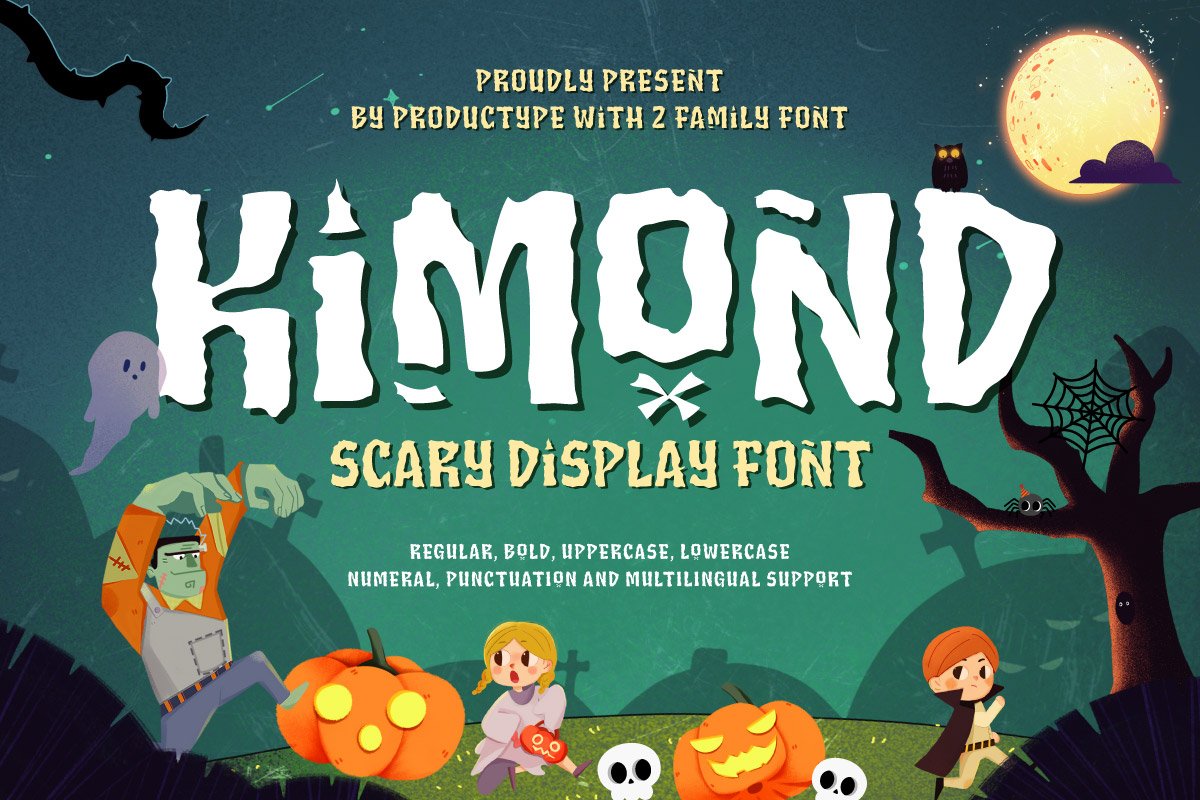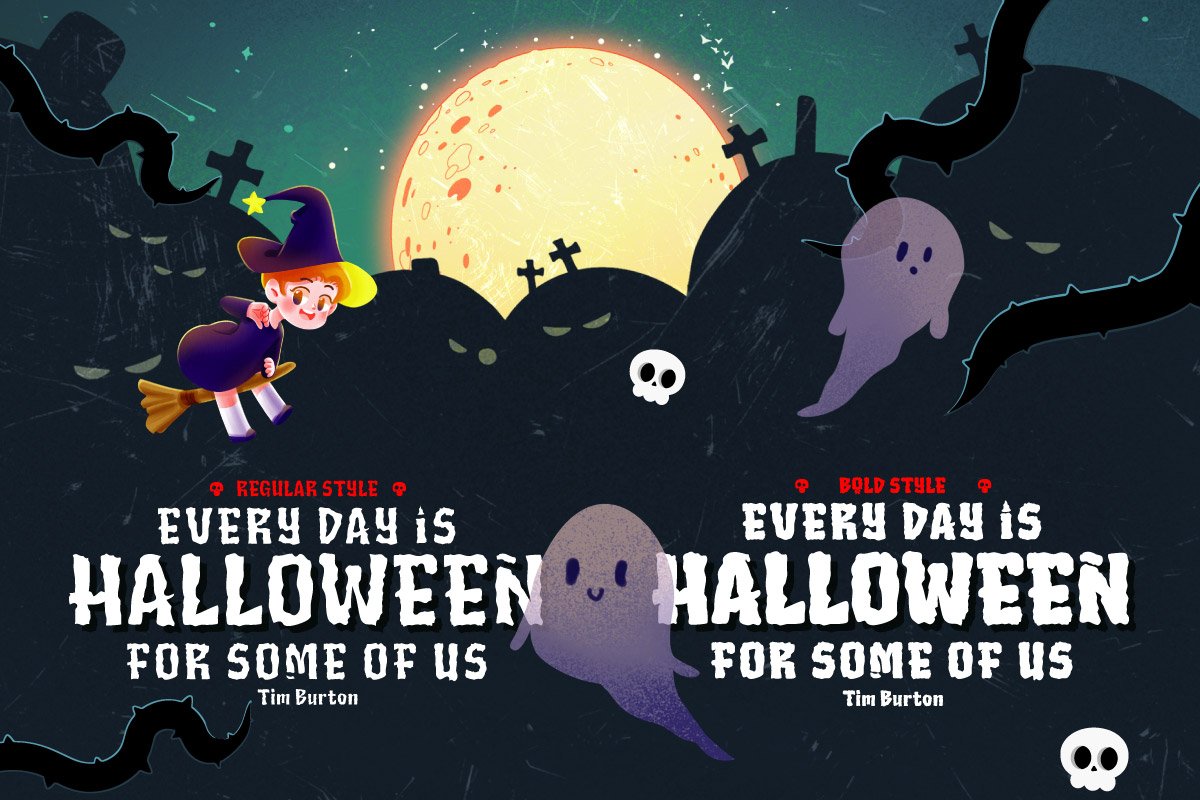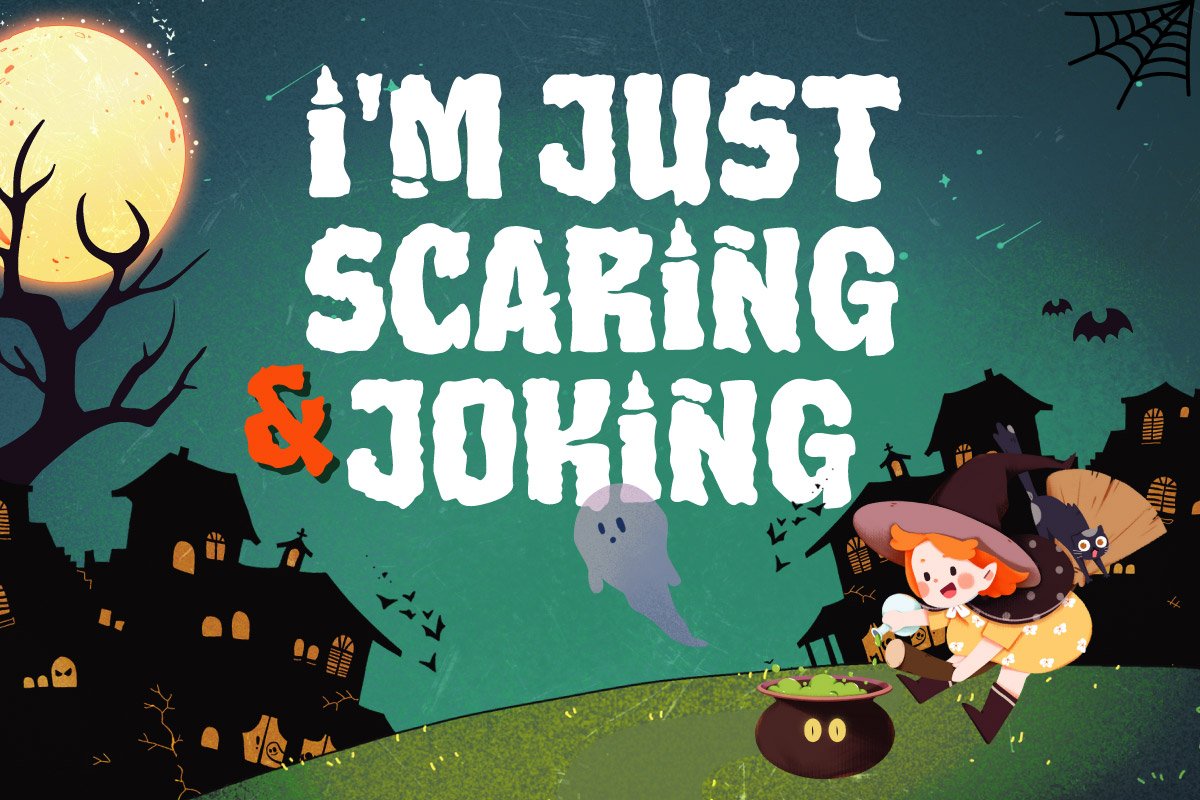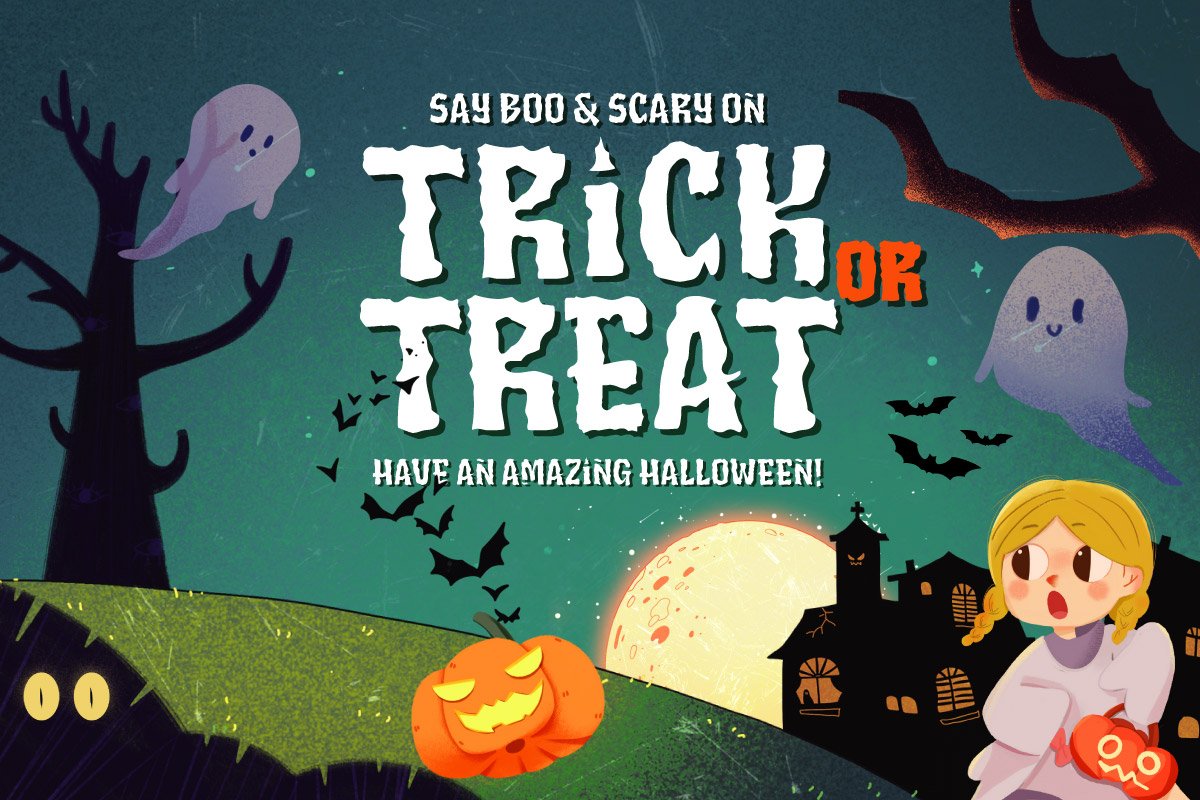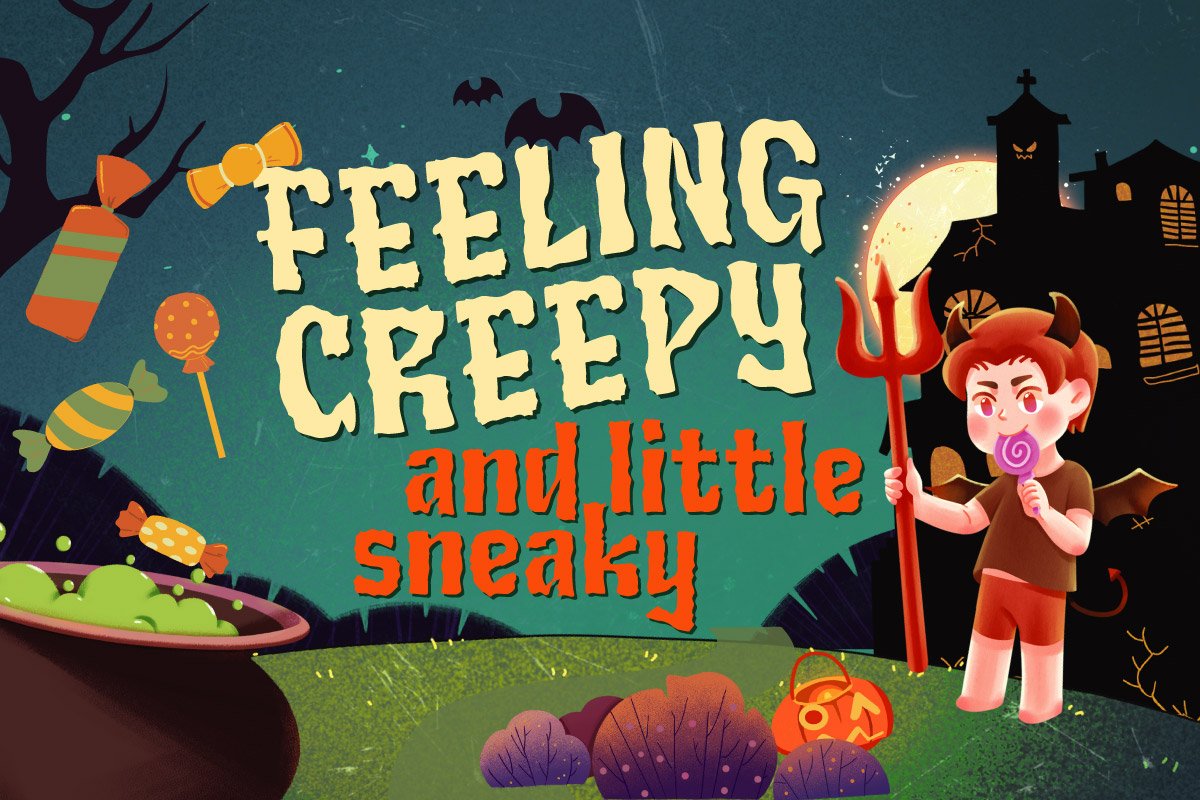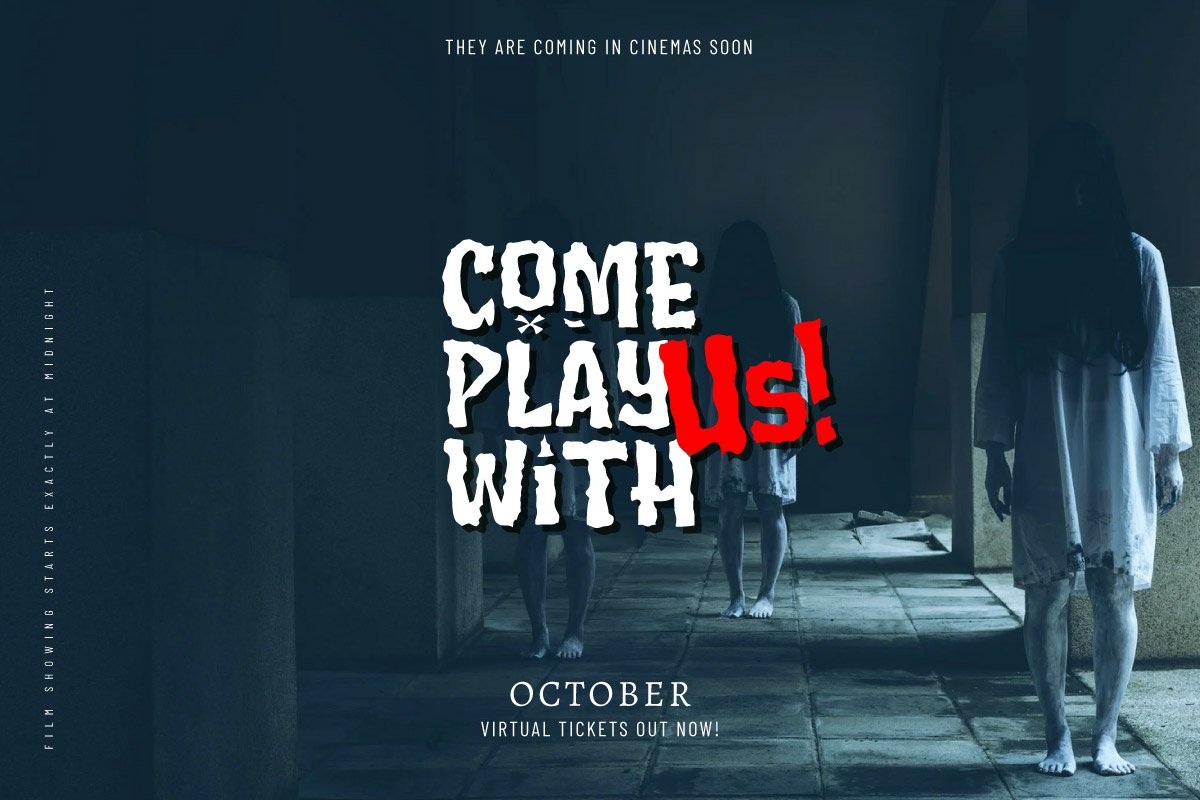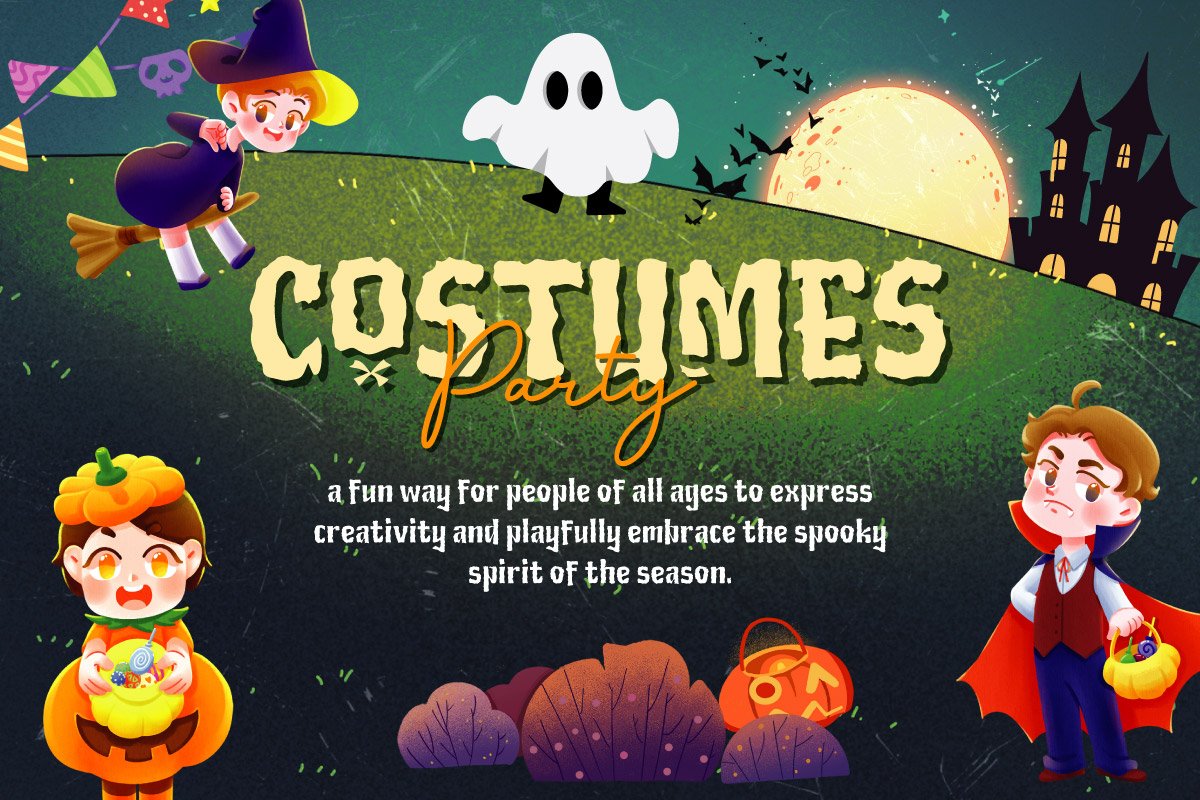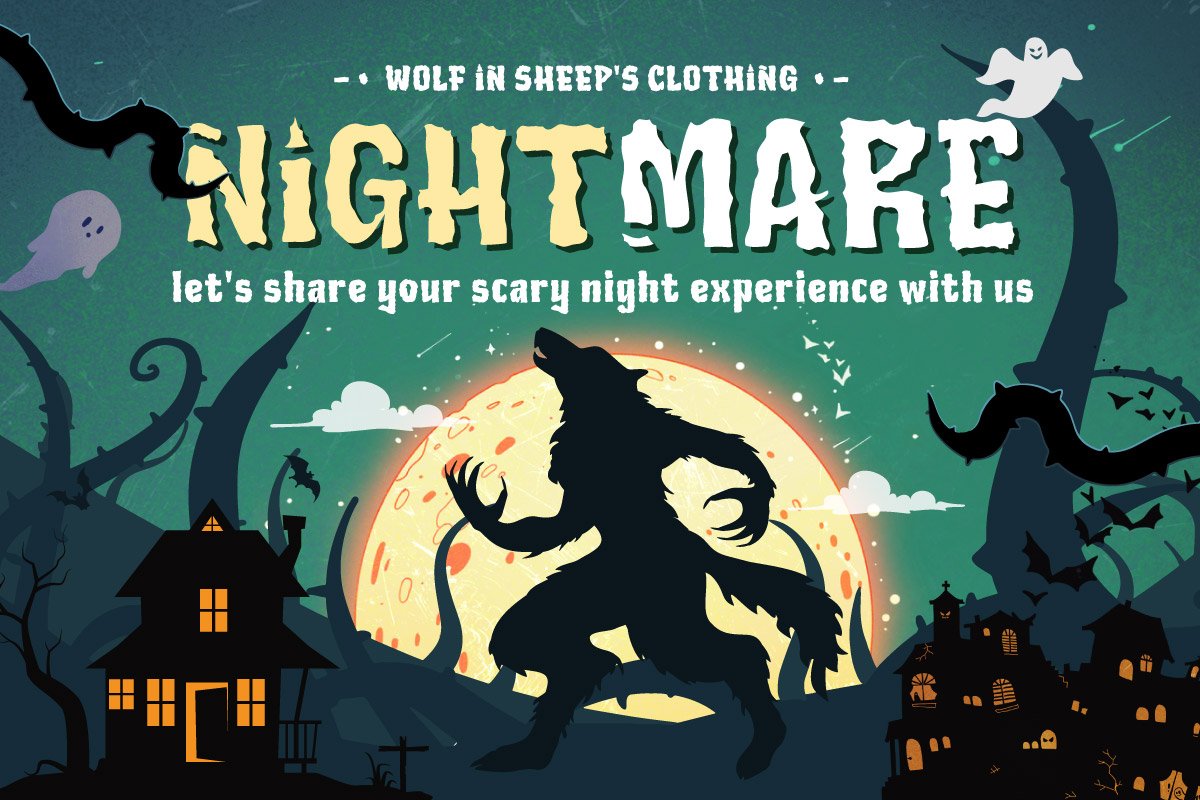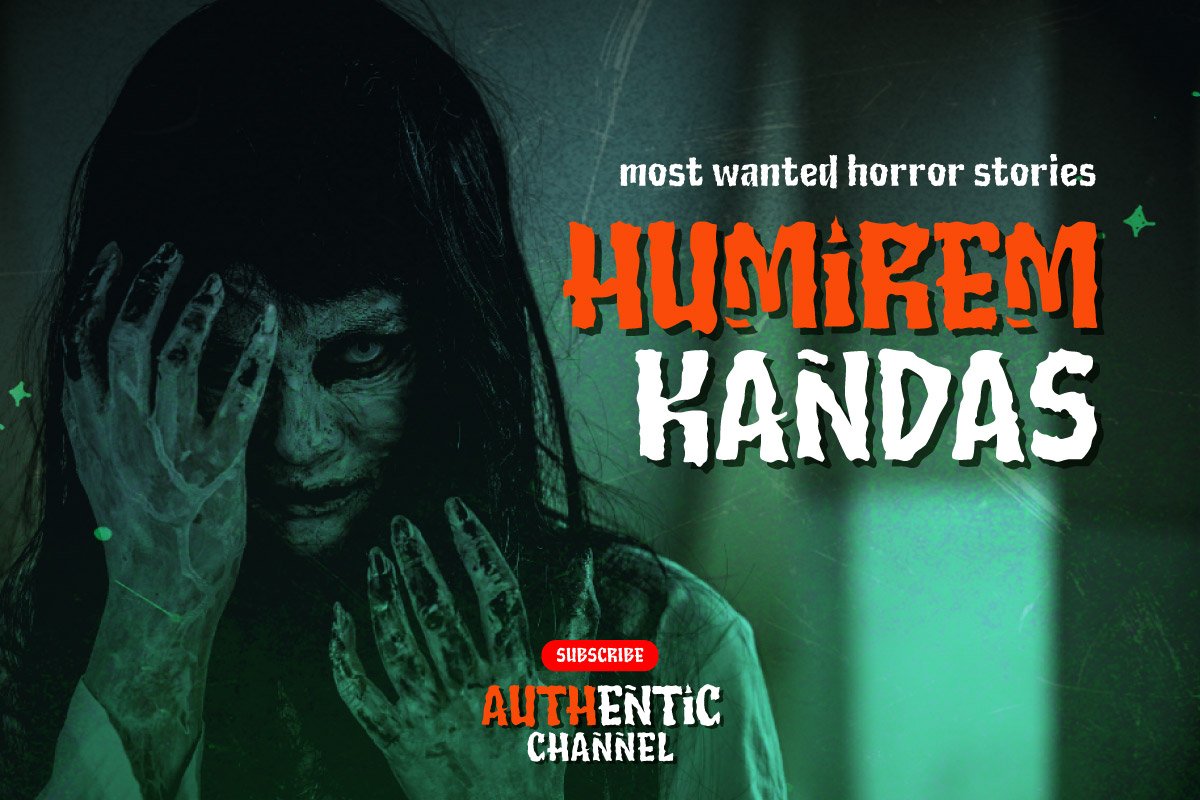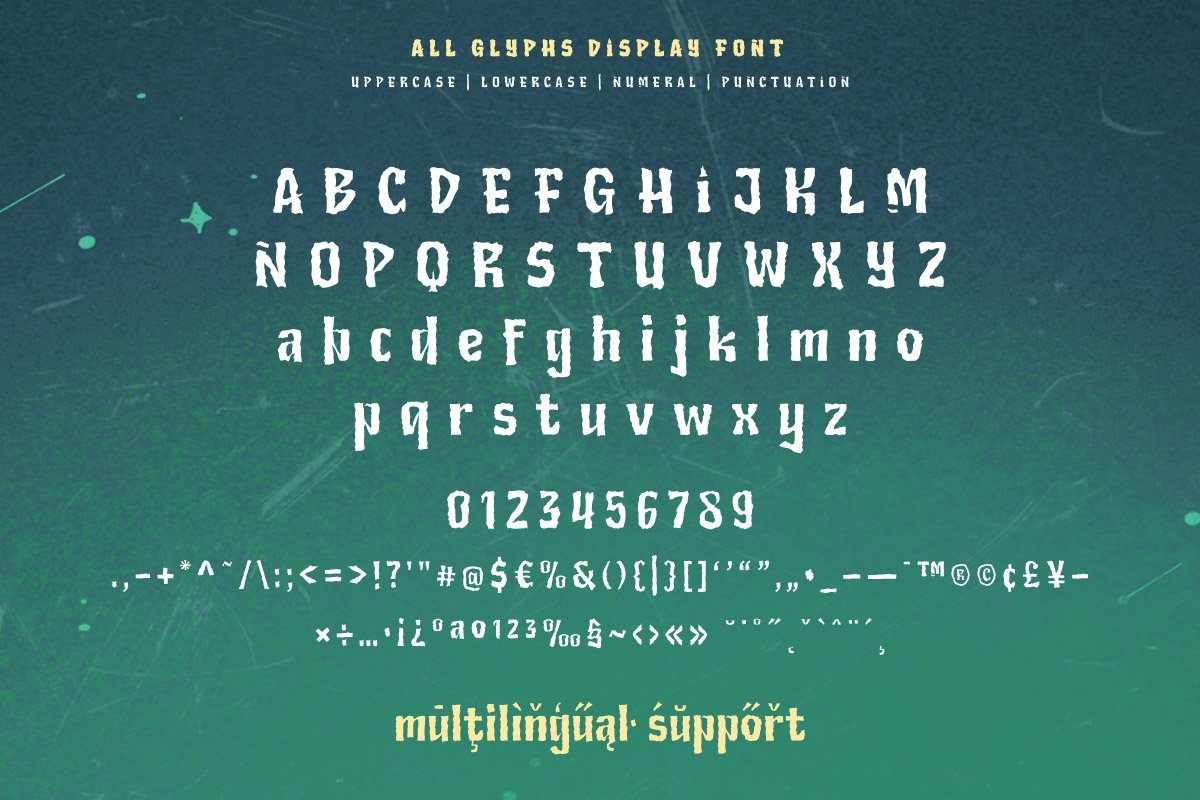
5. Kimond – Halloween Display Font
Kimond – Halloween Display Font
Regular
Bold
Kimond: Bring Haunting Vibes to Your Halloween Creations!
Step into the world of eerie excitement with Kimond, a bold Halloween display font that will infuse your designs with a chilling atmosphere. Featuring sharp, jagged lines and an unmistakably spooky aesthetic, Kimond is the perfect way to give your Halloween projects a ghostly touch.
Key Features:
• Specifically designed for haunting and Halloween-themed projects
• Unique, jagged letterforms that evoke a sense of dark mystery
• Perfect for bold headlines, eerie posters, spooky invitations, and themed branding
Ideal Uses:
✓ Haunted house posters
✓ Halloween party invites
✓ Frightful product packaging
✓ Event logos for spooky occasions
✓ Horror book or comic covers
Kimond offers a powerful and sinister look, making it a must-have for designers looking to create captivating and fear-inducing visuals. With its strong and memorable style, this font will give your Halloween creations the edge they need to stand out from the rest.
This Halloween, don’t just design — bewitch with Kimond!